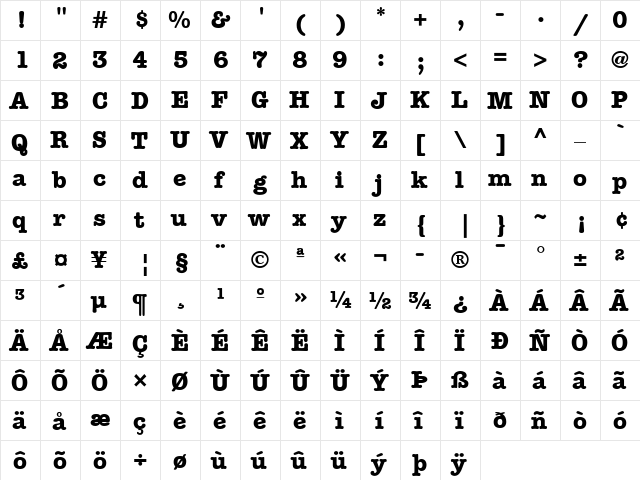
AmericanTypewriter LT MediumA Bold Font Preview
AmericanTypewriter LT MediumA Bold
AmericanTypewriter LT MediumA Bold Font Details
Design Context for AmericanTypewriter LT MediumA Typeface
AmericanTypewriter LT MediumA brings the precise, column-aligned rhythm of monospaced typography to designs that value technical clarity and systematic order. The heavy weight commands attention and anchors typographic hierarchies.
Pro Tip: Pair AmericanTypewriter LT MediumA with a proportional sans for UI contexts where code-style labels and regular body copy need to coexist.